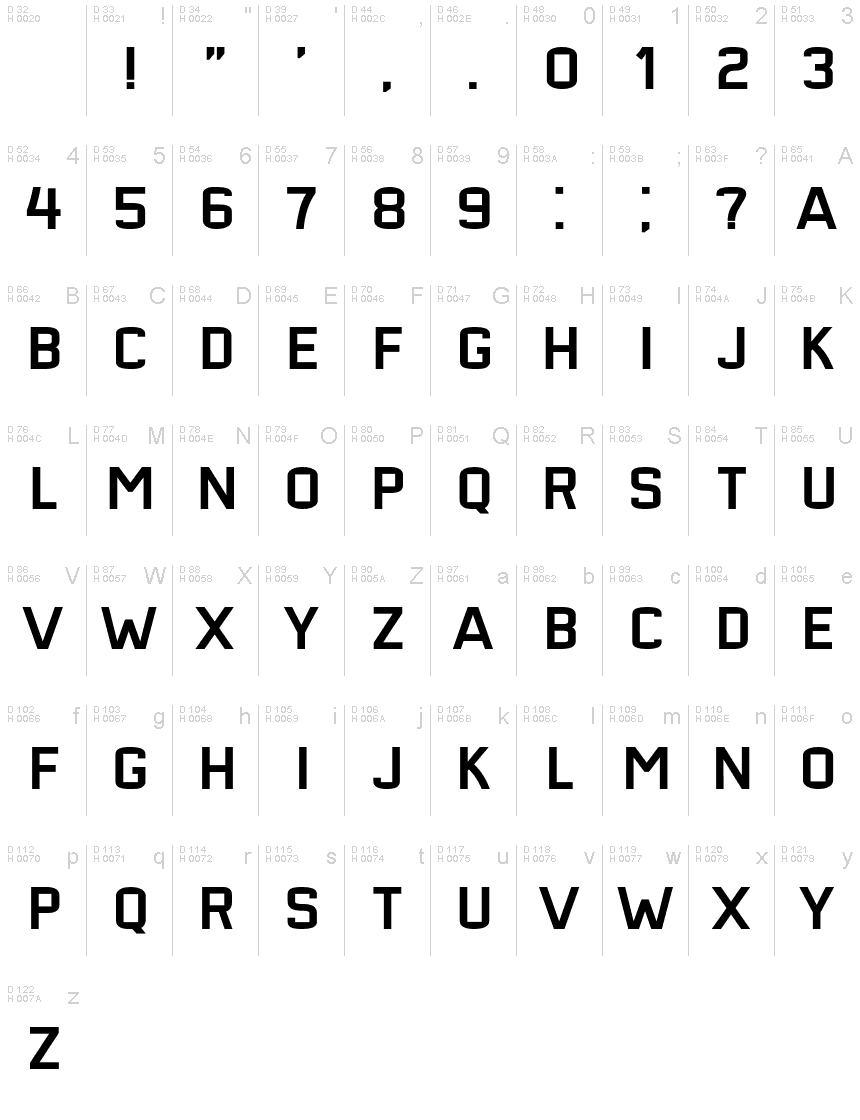
Philanderer Regular
Philanderer, a captivating creation by renowned font designer Vladimir Nikolic. With its elegant sans serif style and semi-expanded width, this font exudes sophistication and versatility.
Perfect for projects seeking a touch of modernity, Philanderer is ideal for fashion editorials, luxury brand logos, and sleek website designs. Its clean lines and balanced proportions make it equally suitable for professional presentations or contemporary book covers.
Let Philanderer take your project to new heights as it adds a refined and polished touch to any design endeavor.